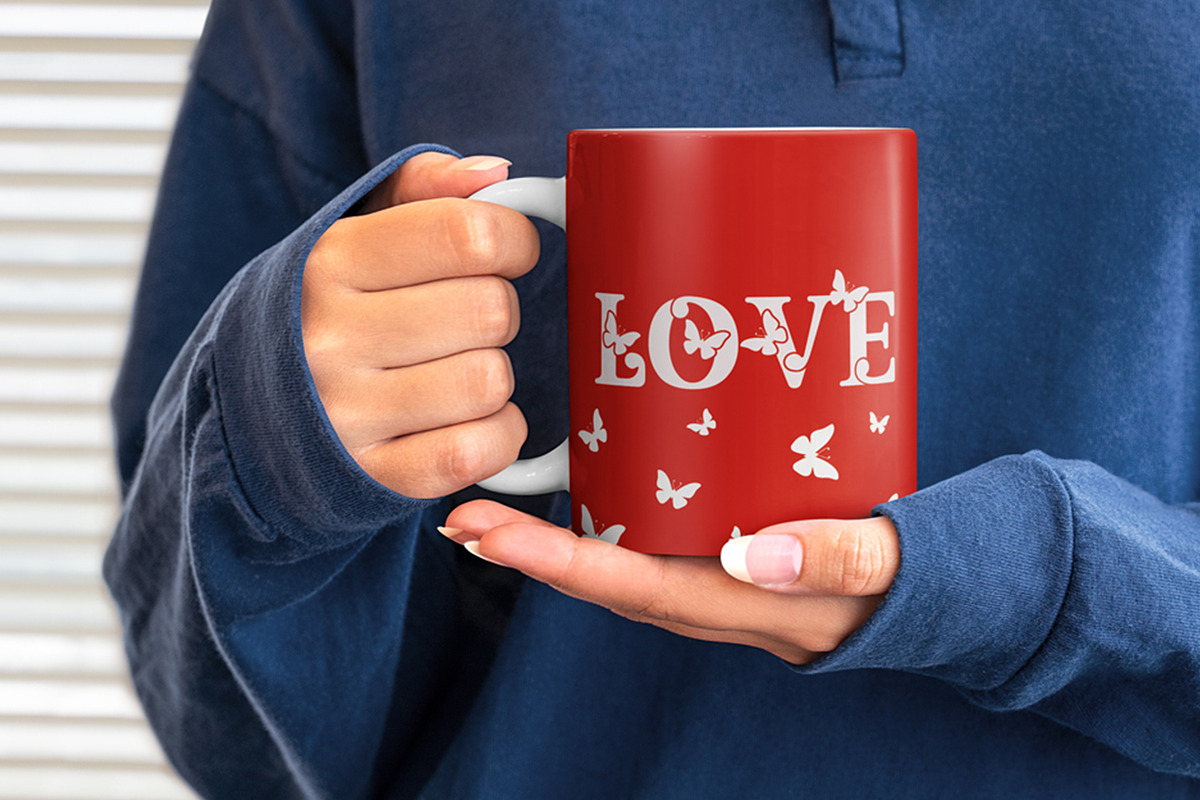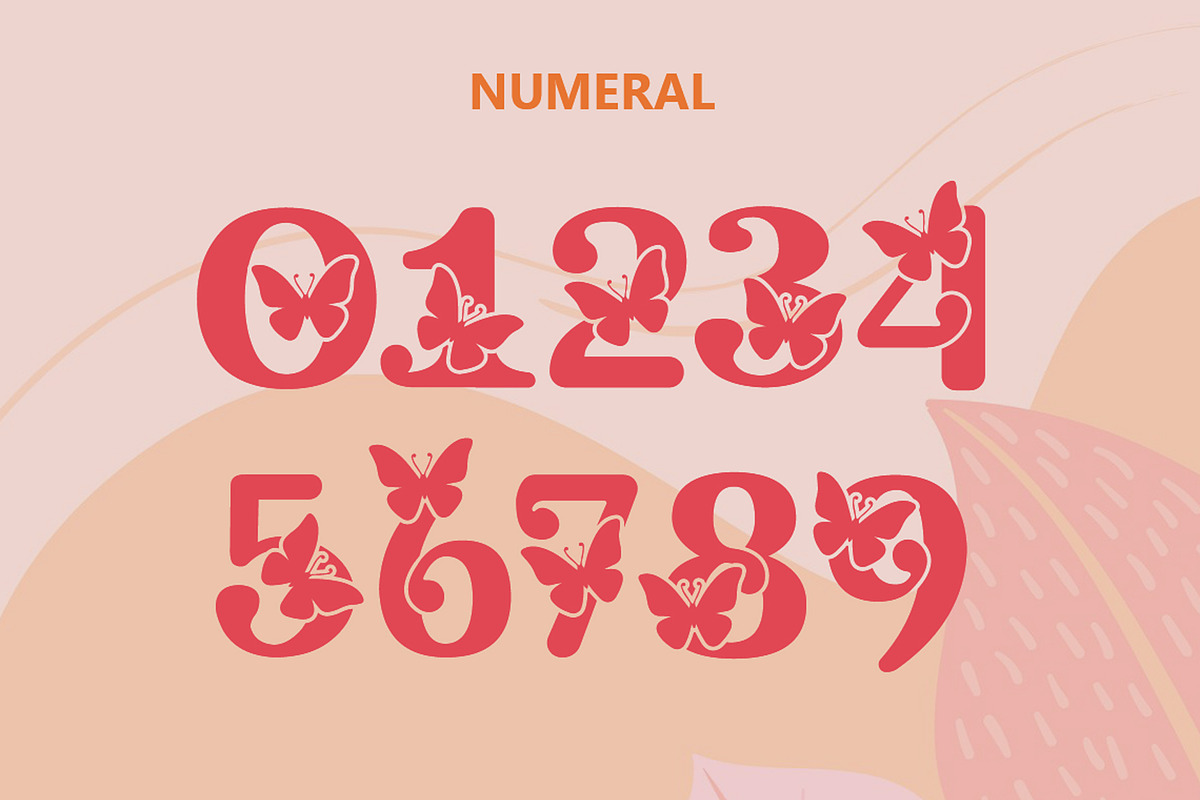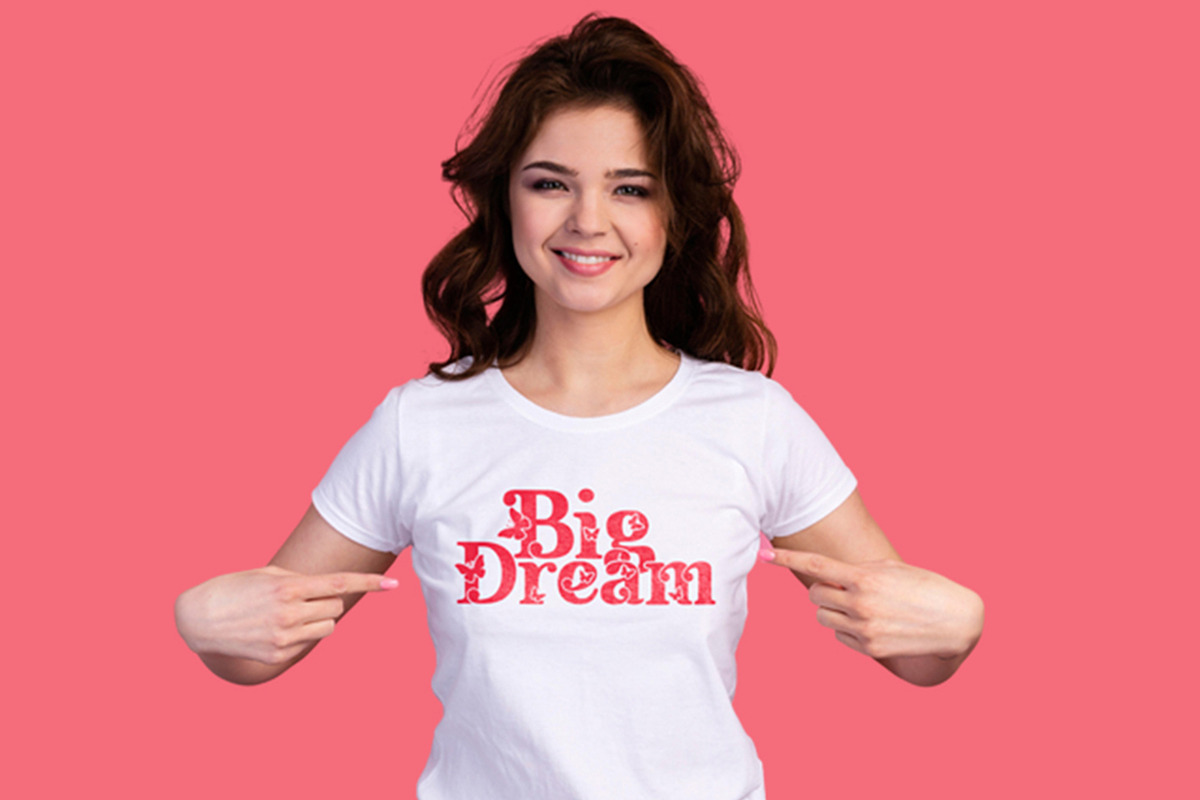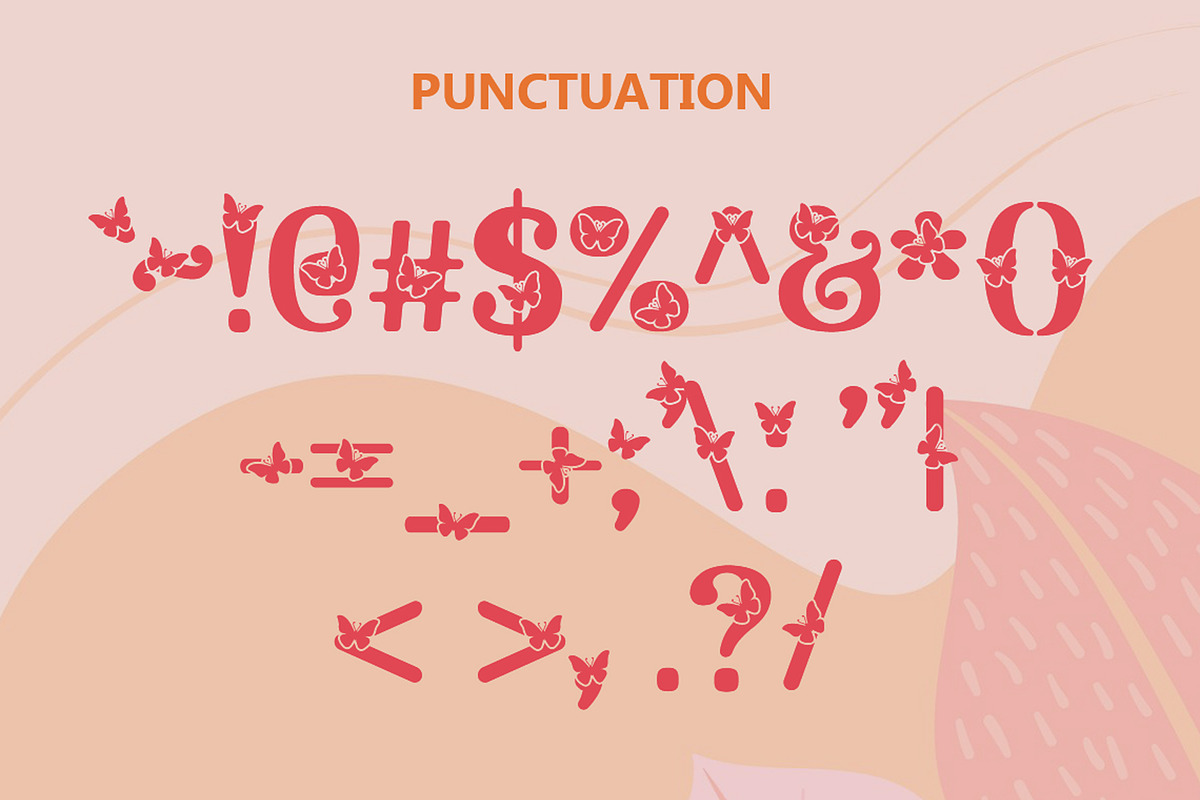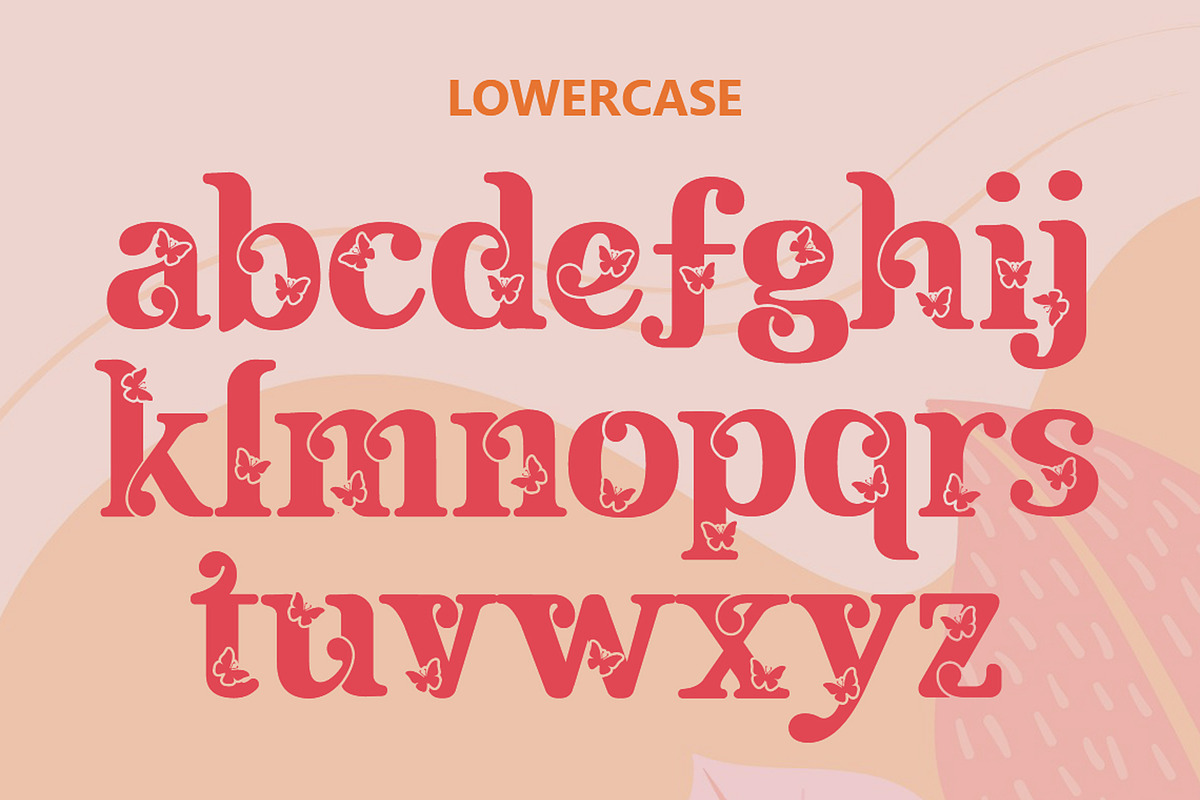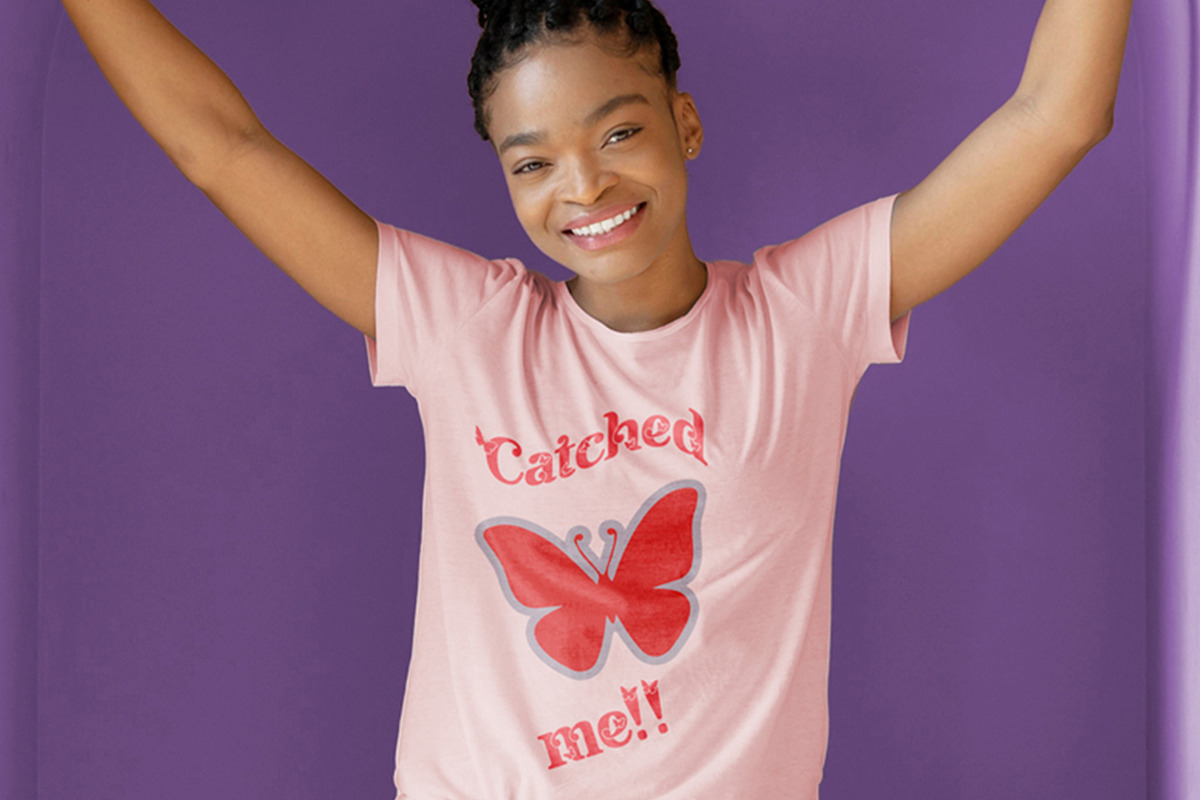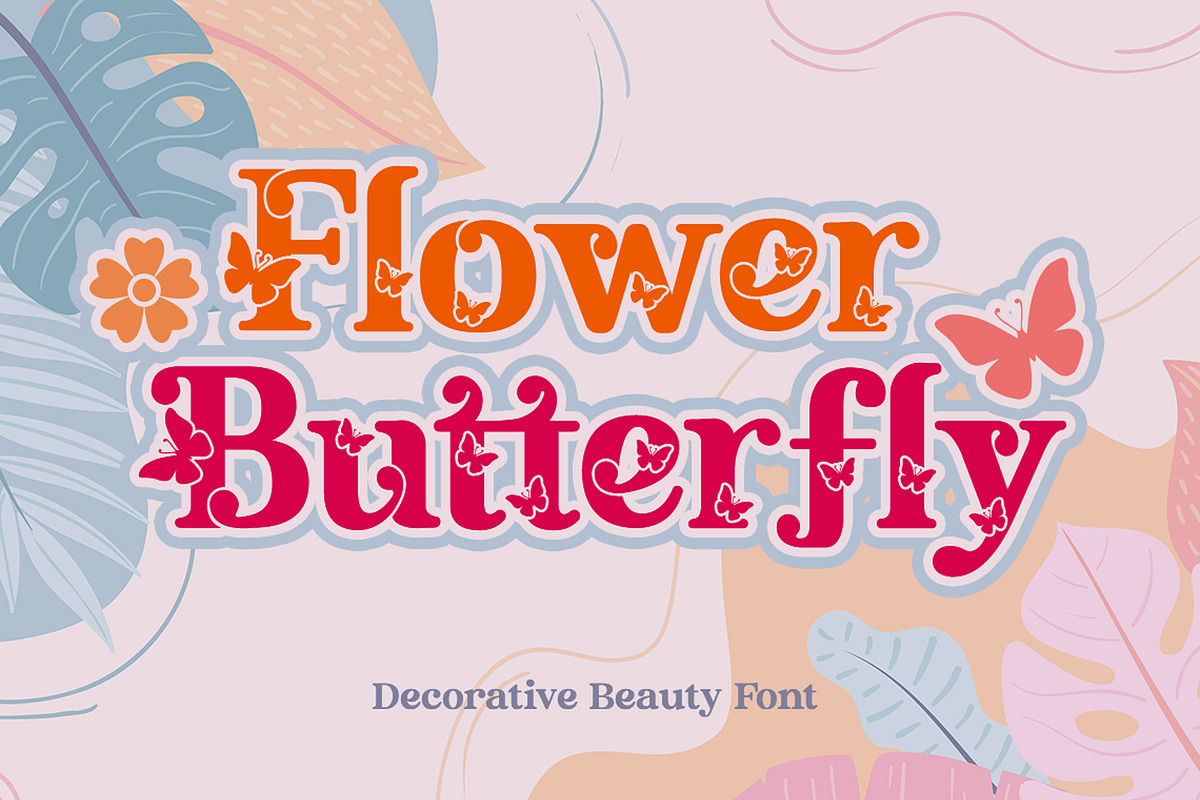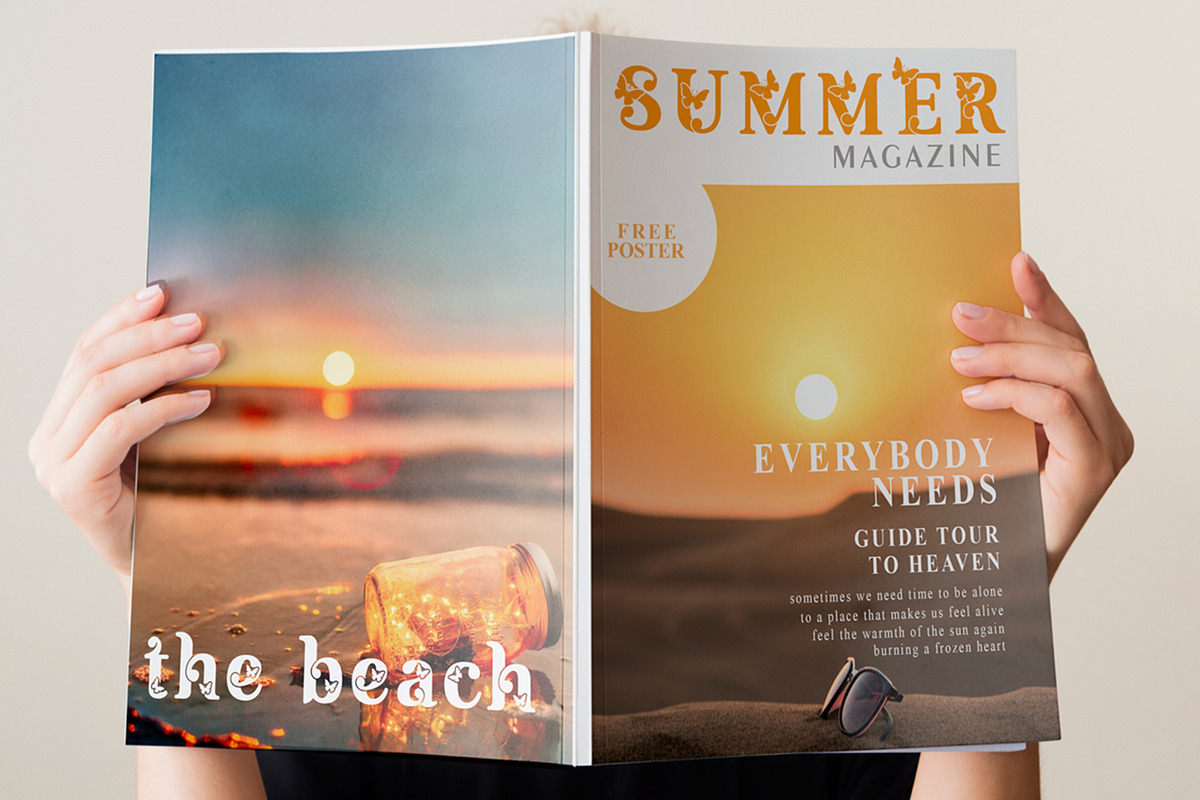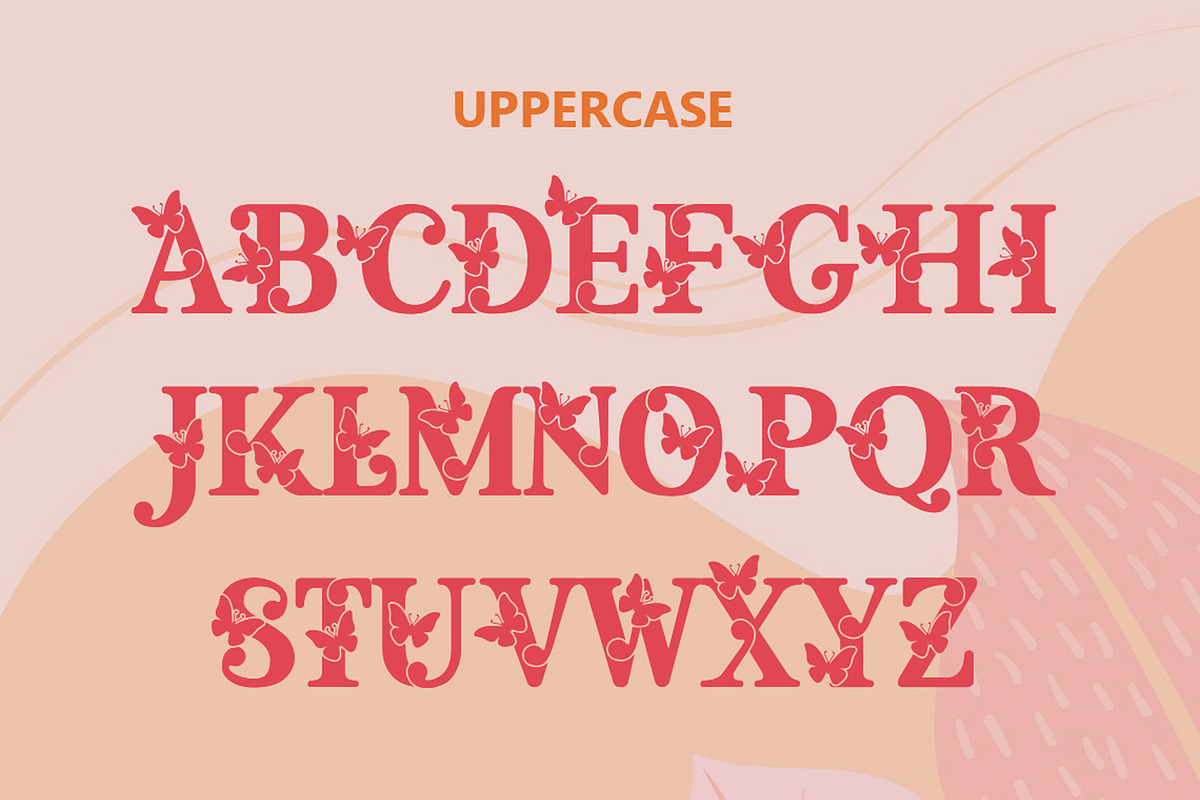
Flower Butterfly | Beauty Font
Flower Butterfly is a playful decorative font with a theme inspired directly by butterfly designs. Fall in love with its authentic feel and use it to create gorgeous invitations, beautiful stationary art, eye-catching social media posts, and cute greeting cards. Add this beautiful display font to each of your creative ideas and notice how it makes them stand out!